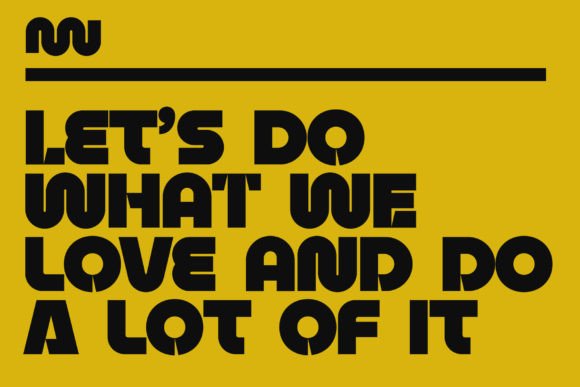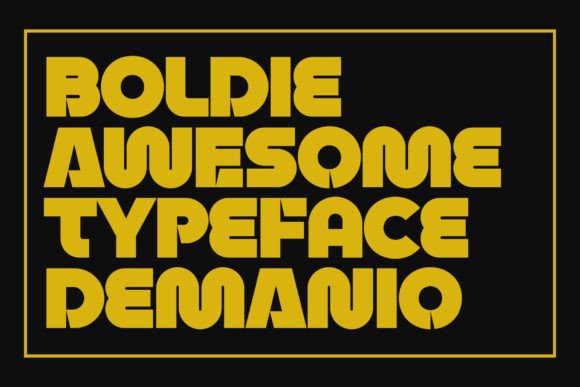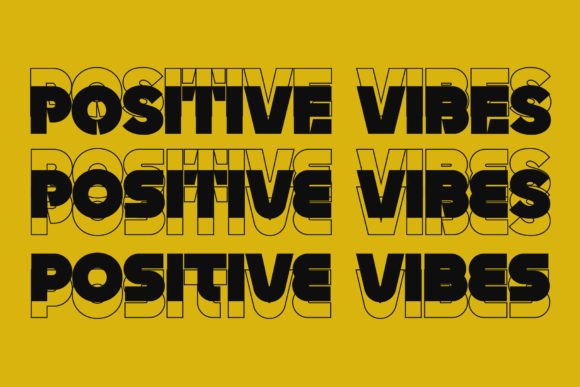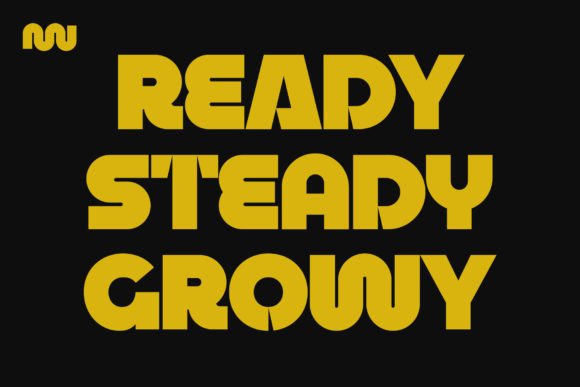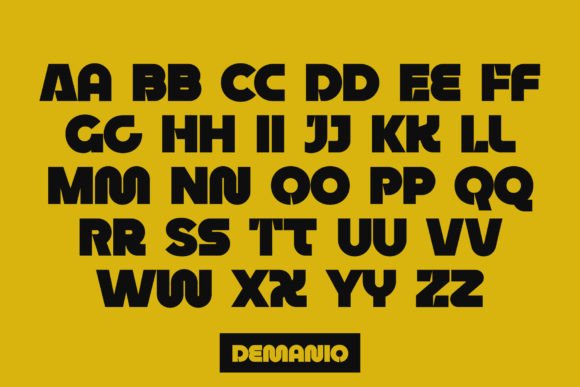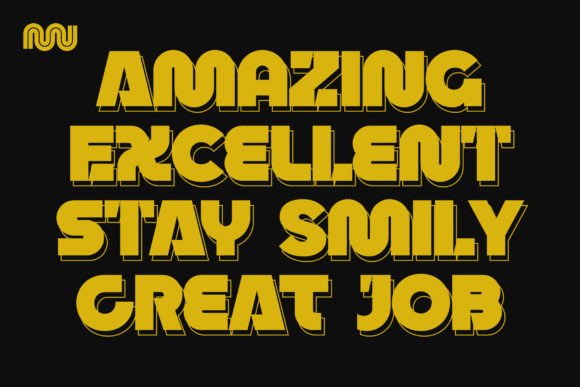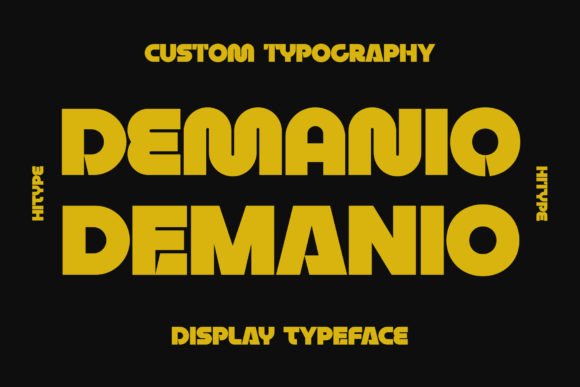
Demanio Font: Elevate Your Designs with a Bold and Modern Typeface
Demanio is a bold and modern display typeface that can instantly transform your creative ideas into authentic pieces of art. This stunning font is perfect for designers and crafters looking to add a touch of sophistication and elegance to their projects. In this article, we’ll explore the features and benefits of Demanio Font, and how it can take your designs to the next level.
What is Demanio Font?
Demanio Font is a display typeface designed to make a statement. Its bold and modern aesthetic makes it perfect for headlines, titles, and other design elements that require a touch of drama and flair. The font features clean lines, sharp edges, and a confident swagger that demands attention. Whether you’re working on a logo, brochure, or website, Demanio Font is sure to make your design stand out from the crowd.
Key Features of Demanio Font
• Bold and Modern Aesthetic: Demanio Font boasts a bold and modern design that’s perfect for making a statement.
• Clean Lines and Sharp Edges: The font features clean lines and sharp edges that give it a sleek and sophisticated look.
• Highly Versatile: Demanio Font can be used for a wide range of design projects, from logos and brochures to websites and social media graphics.
• Easily Readable: Despite its bold design, Demanio Font is surprisingly easy to read, making it perfect for use in body text as well as headlines.
Benefits of Using Demanio Font
So why should you choose Demanio Font for your next design project? Here are just a few benefits of using this amazing typeface:
• Adds Visual Interest: Demanio Font adds a touch of visual interest to any design project, making it perfect for designers looking to create something truly eye-catching.
• Enhances Brand Identity: With its bold and modern aesthetic, Demanio Font can help enhance your brand identity and make your business stand out from the competition.
• Boosts Creativity: Demanio Font is the perfect tool for sparking creativity and inspiring new ideas. Its unique design is sure to get your creative juices flowing!
How to Use Demanio Font in Your Designs
So how can you use Demanio Font in your designs? Here are a few ideas to get you started:
• Logos and Branding: Use Demanio Font to create a bold and memorable logo that showcases your brand’s personality.
• Headlines and Titles: Add a touch of drama and flair to your headlines and titles with Demanio Font.
• Social Media Graphics: Use Demanio Font to create eye-catching social media graphics that grab attention and drive engagement.
• Web Design: Add a touch of sophistication and elegance to your website with Demanio Font.
In conclusion, Demanio Font is a bold and modern display typeface that’s perfect for designers and crafters looking to add a touch of sophistication and elegance to their projects. With its clean lines, sharp edges, and confident swagger, Demanio Font is sure to make your design stand out from the crowd. So why wait? Download Demanio Font today and start transforming your creative ideas into authentic pieces of art!